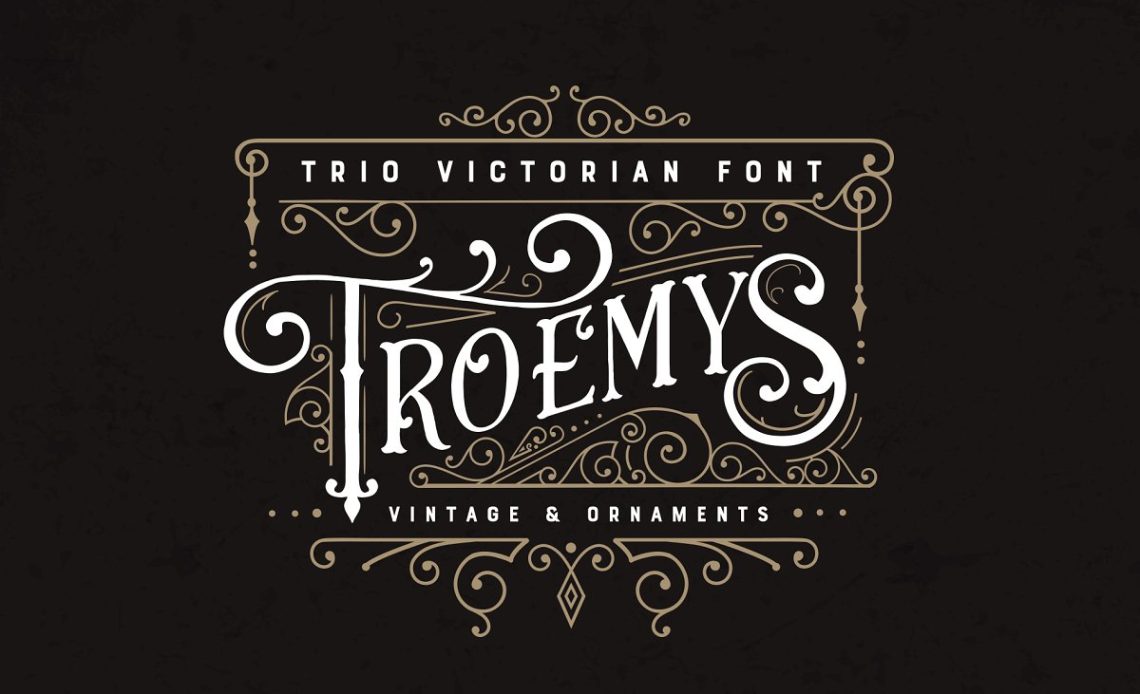
Introducing Troemys Font Trio and Extras, a vintage Victorian font family with a unique touch of decorative elements that will take your designs to a whole new level. Designed by S Mihaela, Troemys includes three font styles: Troemys Regular, Troemys Decorated, and Troemys Ornaments, each with its own unique charm and personality.
With Troemys Font Trio and Extras, you can create stunning designs for a variety of projects, including logos, packaging, branding, posters, and more. This font family is perfect for designers who want to add a unique vintage touch to their work.
Troemys Font Trio and Extras will give your designs a nostalgic and captivating feel, guaranteed to grab your audience's attention.